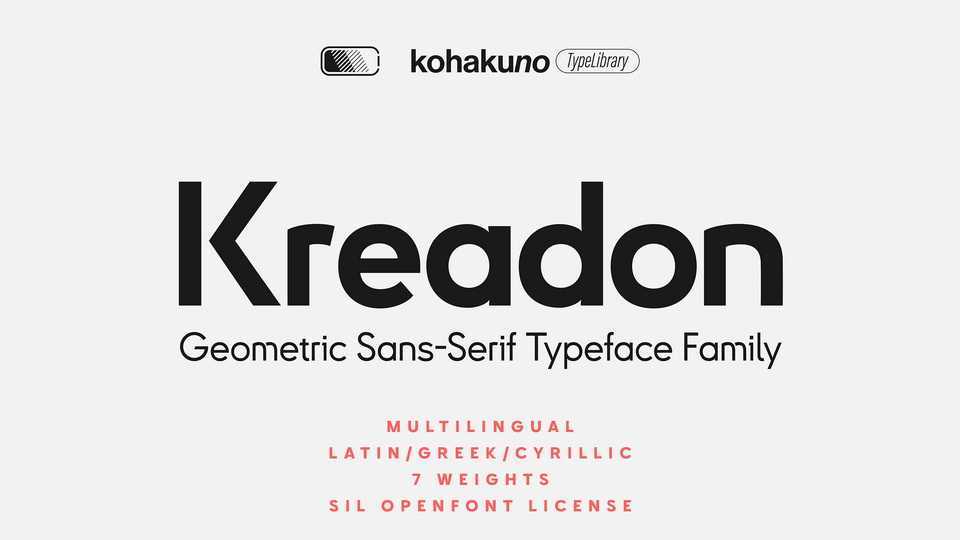
Download Kreadon font, a versatile geometric sans serif typeface with a harmonious appearance, perfect for both texts and headlines. Kreadon typeface is suited to cover a wide variety of tasks from editorial to brand design, advertising, logos and more.